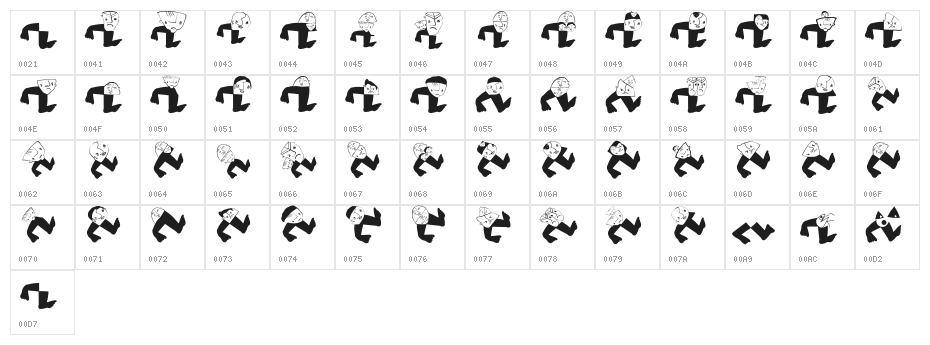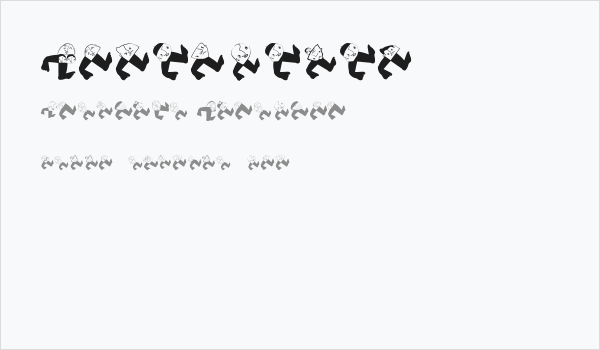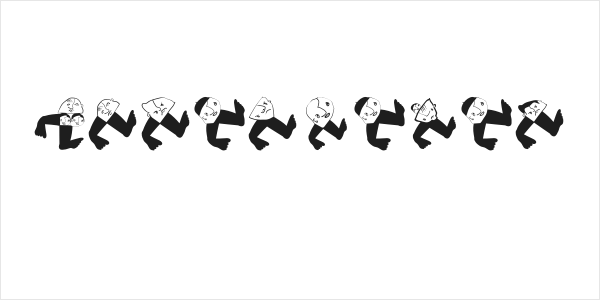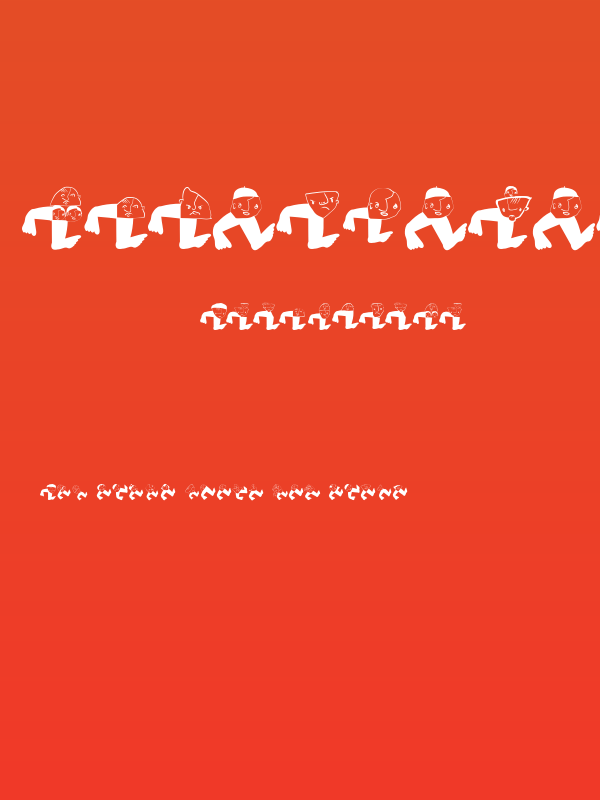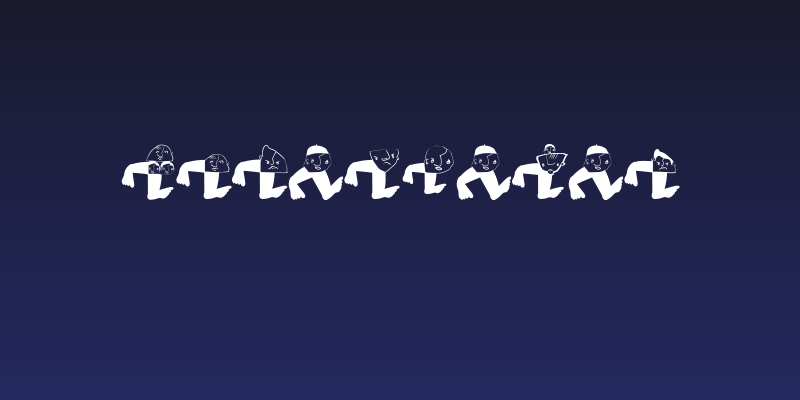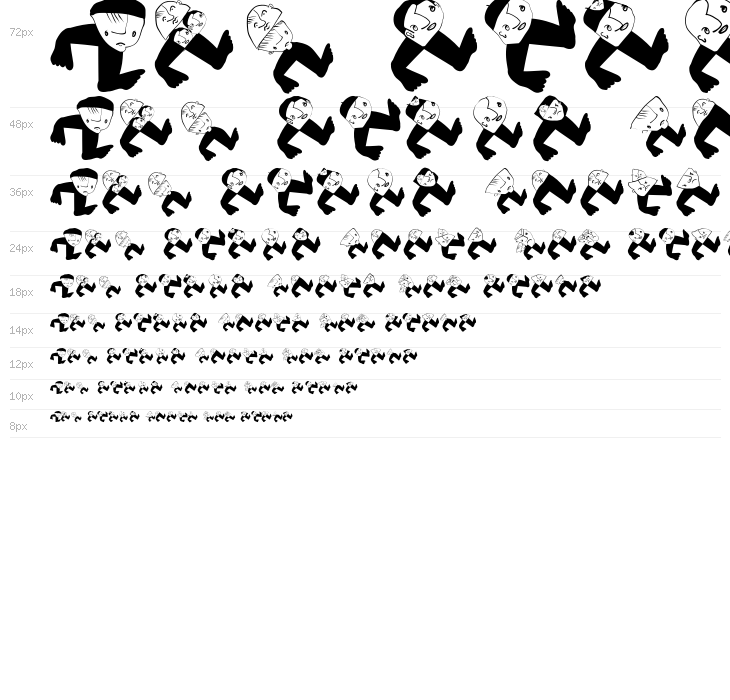
Homunculus Font
Homunculus Description
This is not a valid font. The image consists of cartoonish characters with exaggerated features, each depicted in a running pose. The characters are stylized with unique facial expressions and body proportions, creating a humorous and whimsical appearance. The design is more illustrative and artistic rather than typographic, lacking the typical characteristics of a font such as consistent letterforms or glyphs.
| Overall Style | Whimsical, Cartoonish |
| Use Case | Illustrations, Comics |
| Proposed Projects | This style could be used for comic strips, animation projects, or children's book illustrations. |